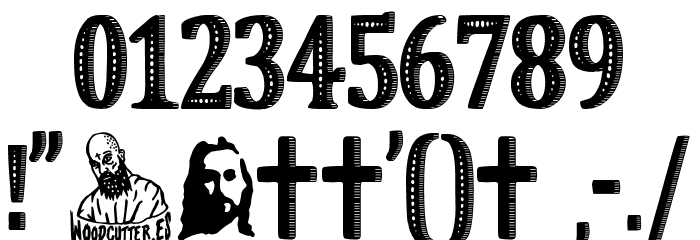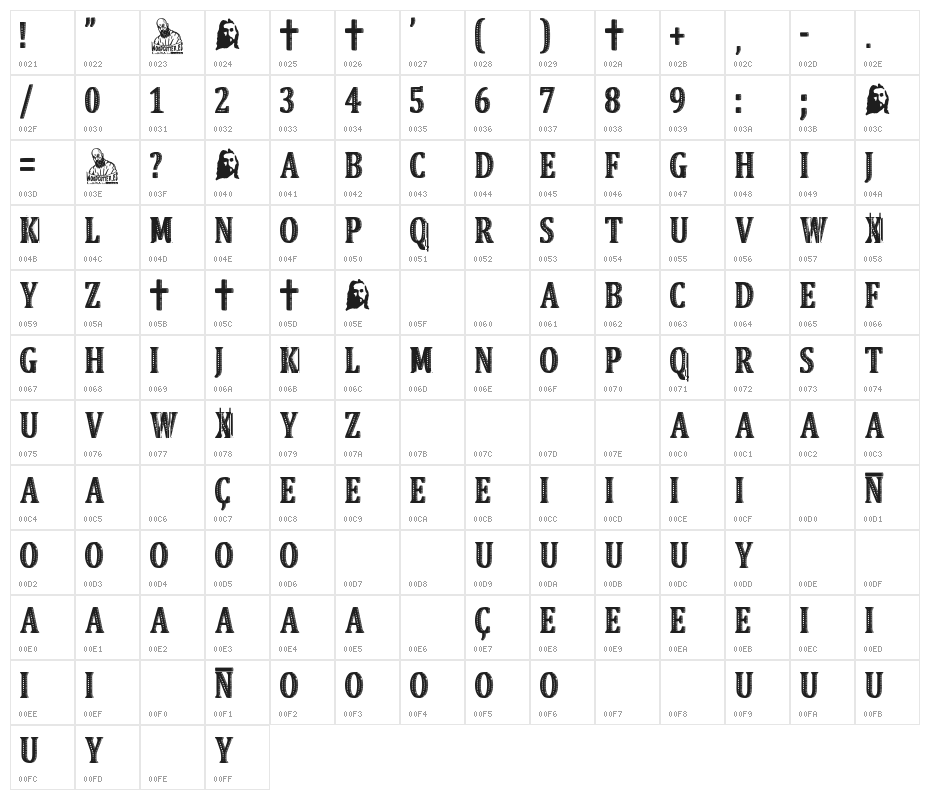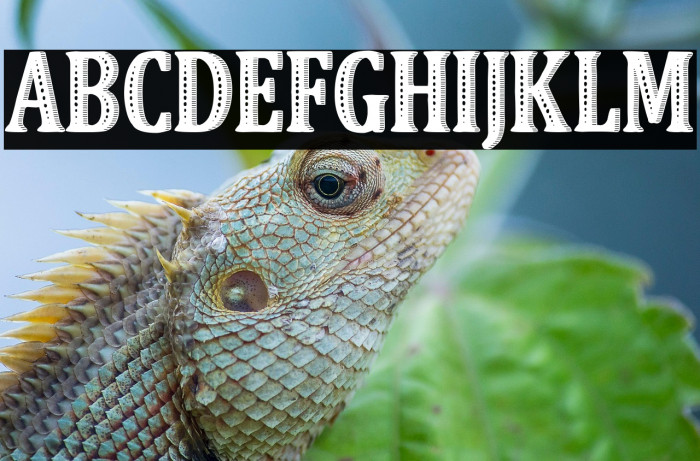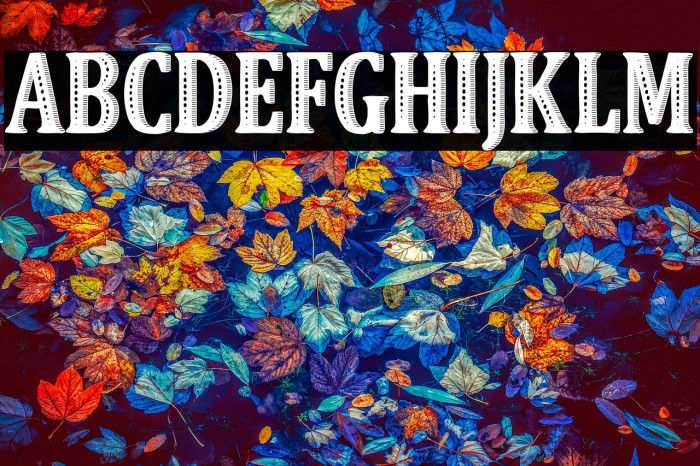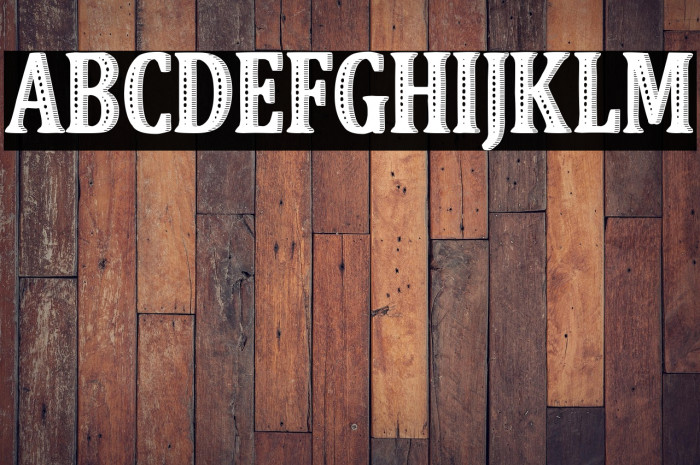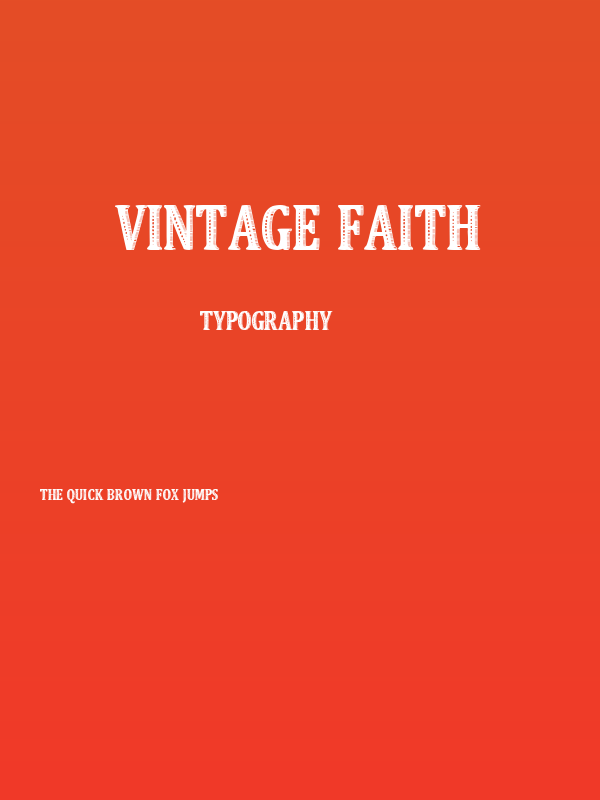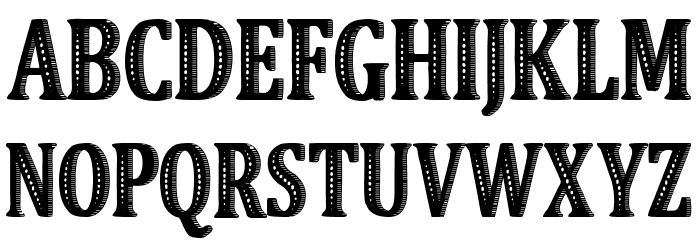
Vintage Faith Font
Vintage Faith Description
This font features a bold, decorative style with a vintage flair, characterized by its unique dotted pattern within each letterform. The uppercase letters are prominent and have a strong presence, making them ideal for attention-grabbing headlines. The numerals and special characters maintain the same decorative style, ensuring consistency across all text elements. The overall design evokes a sense of nostalgia, reminiscent of old signage or classic movie posters.
| Proposed Projects | Ideal for vintage-themed posters, retro branding, and decorative signage. |